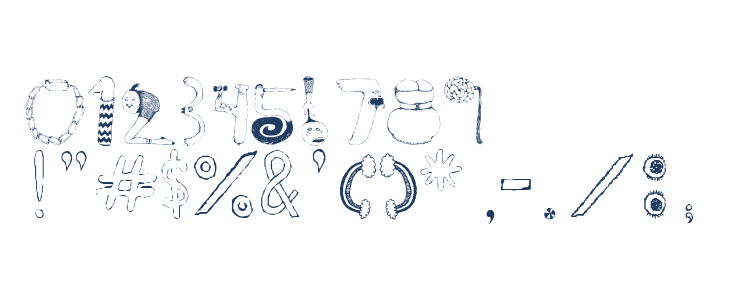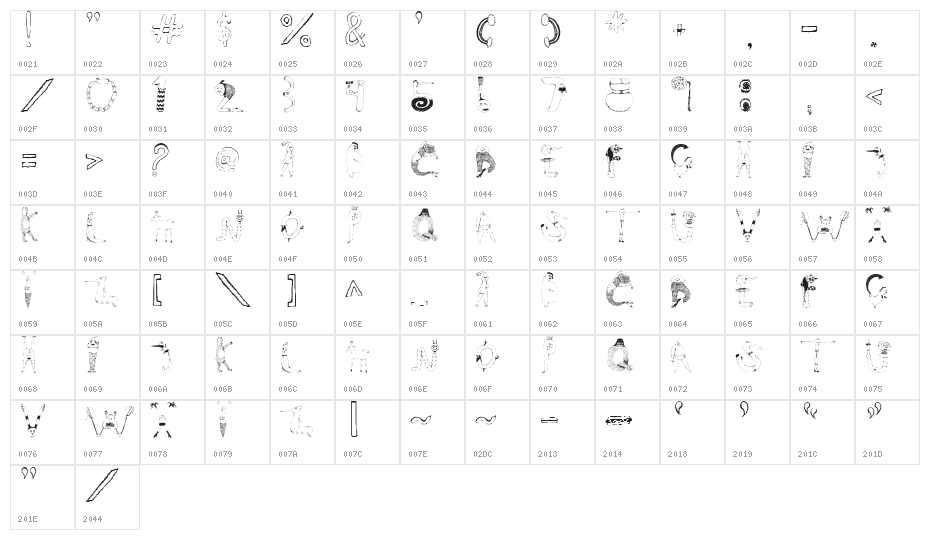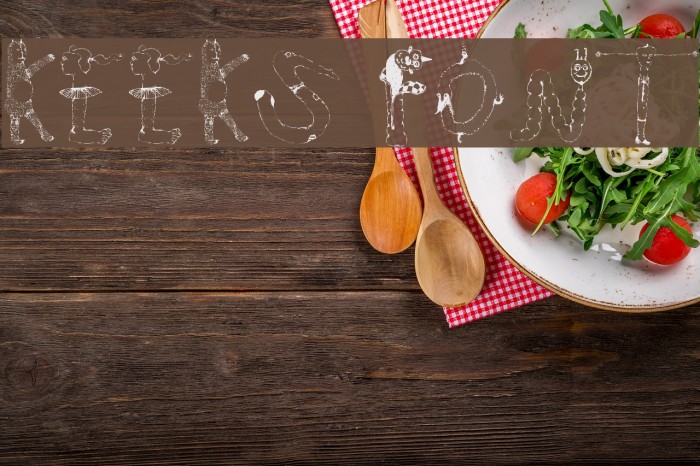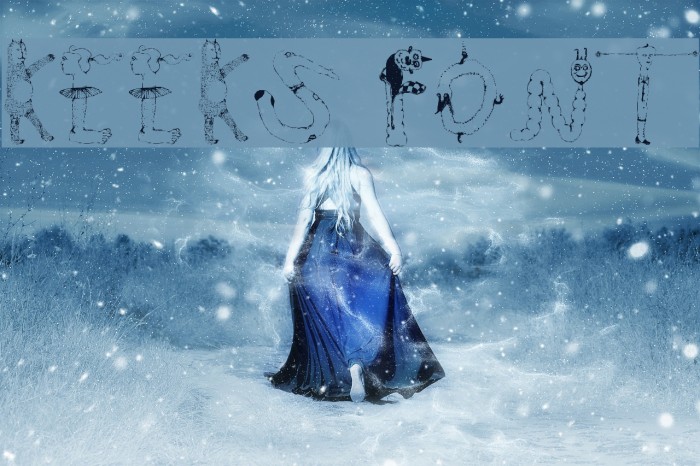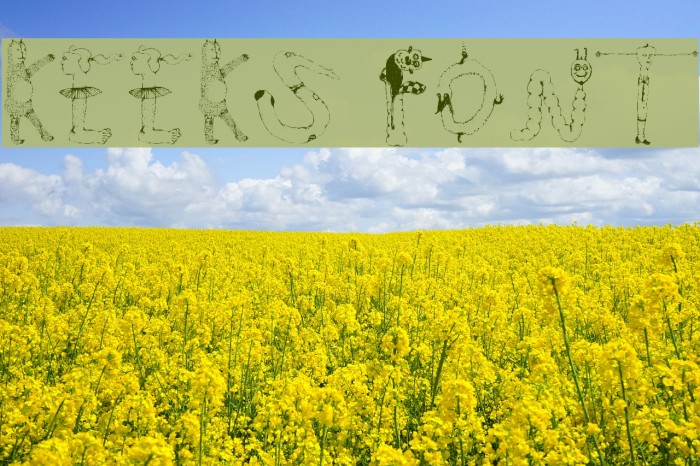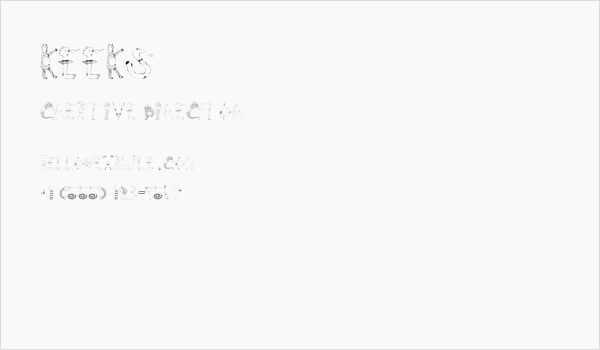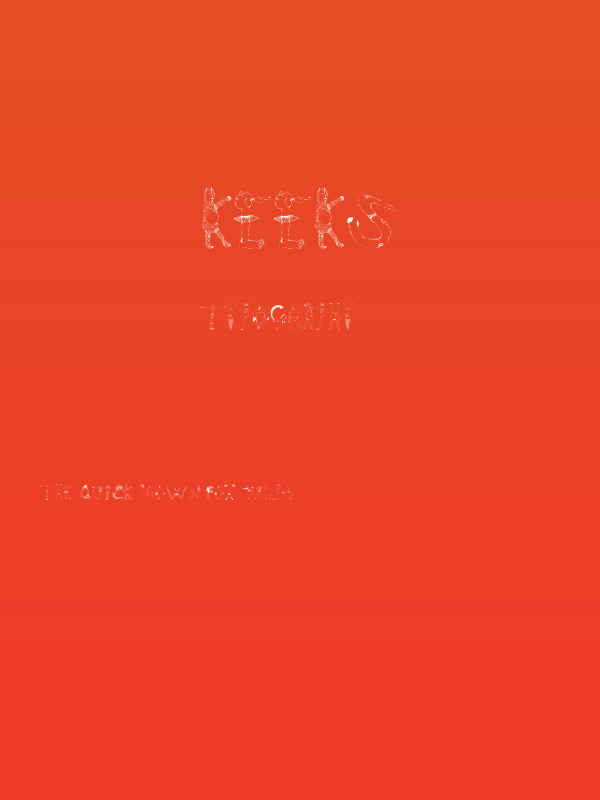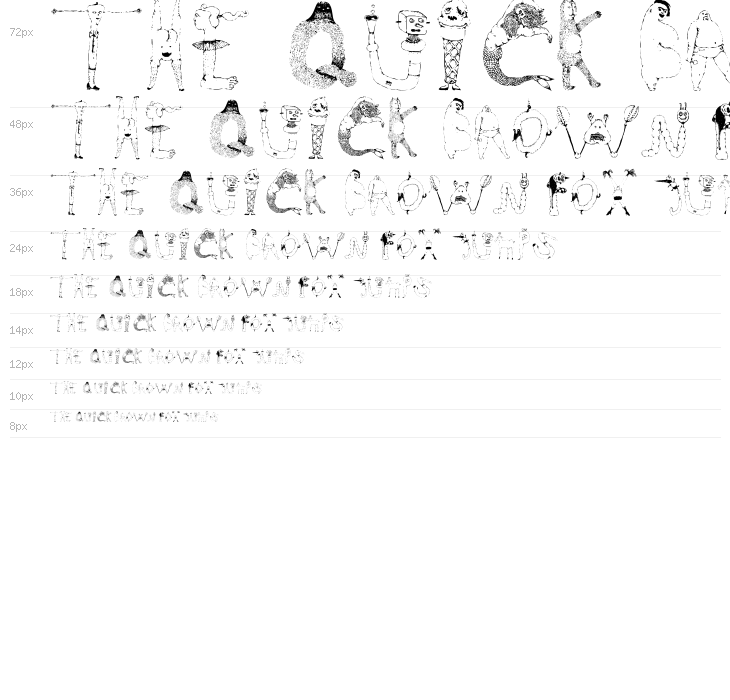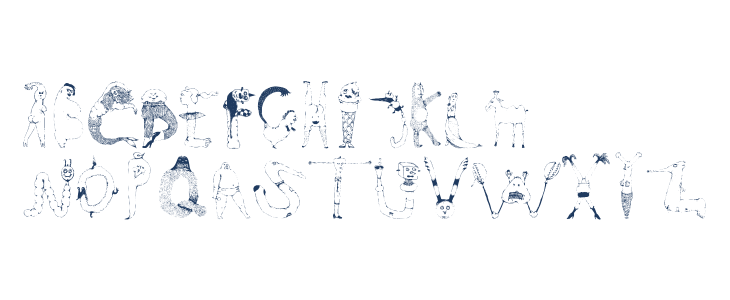
Keeks Font
Keeks Description
This playful and whimsical font is characterized by its creative use of animal and object motifs to form each letter and number. Each character is uniquely designed, incorporating elements like animals, plants, and everyday objects, making it highly decorative and engaging. The font features a mix of line thicknesses and intricate details, providing a visually rich experience. The characters are distinct and imaginative, offering a sense of fun and creativity. This font is not suitable for body text due to its complex design but excels in capturing attention and adding a unique flair to any project.
| Proposed Projects | Ideal for children's books, playful posters, creative invitations, and unique branding projects. |